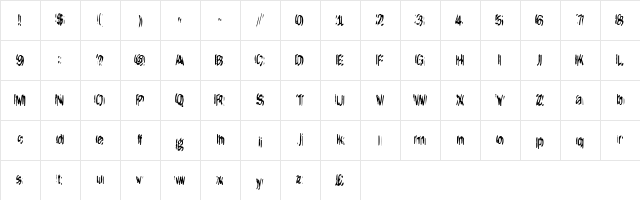
It Lives Again Bubbling
| Style | Bubbling |
Design Context for It Lives Again Typeface
It Lives Again is a composed and adaptable typeface that performs quietly and consistently across a wide range of design contexts.